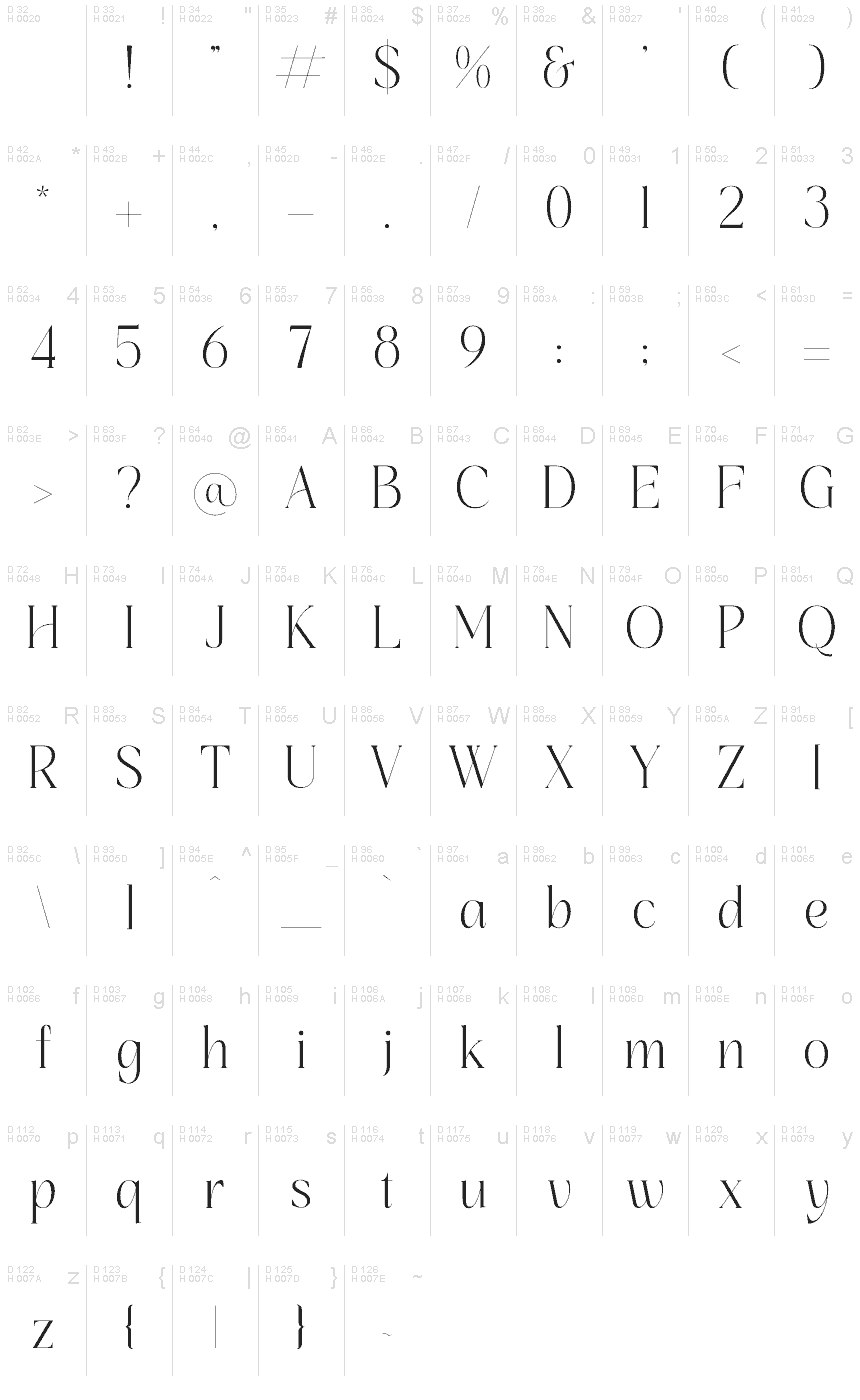
Hatficeld
Hatficeld font by Storytype Studio is a classic serif font of delicate elegance and sophistication. This refined typeface has thin, decorative contours with an overall graceful look and timeless appearance. Its beautiful refined style makes it a stylish addition to various typography projects.
Hatficeld is free for crafting invitations, certificates, brochures, covers, packaging designs, greeting cards, luxury branding items, advertising posters and banners. With elegant and creative styling possibilities the font fits artwork titles as well as body text sections such as chapters or articles within books or magazines.